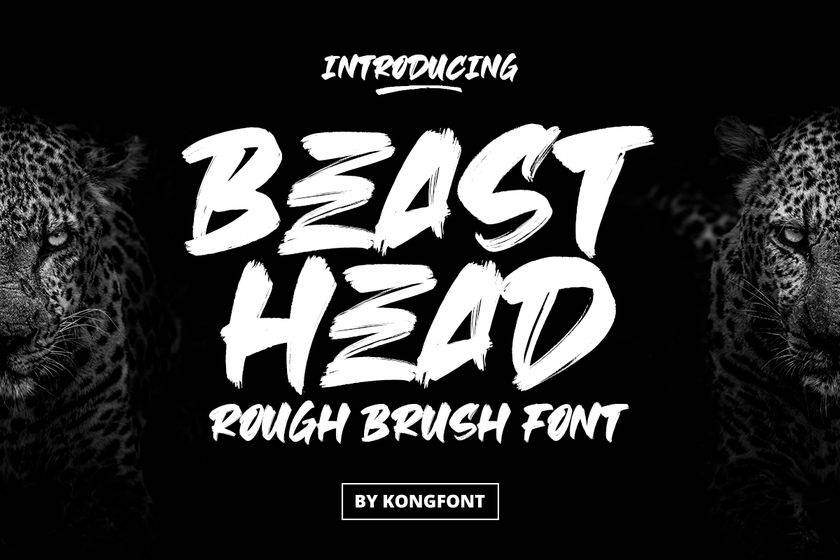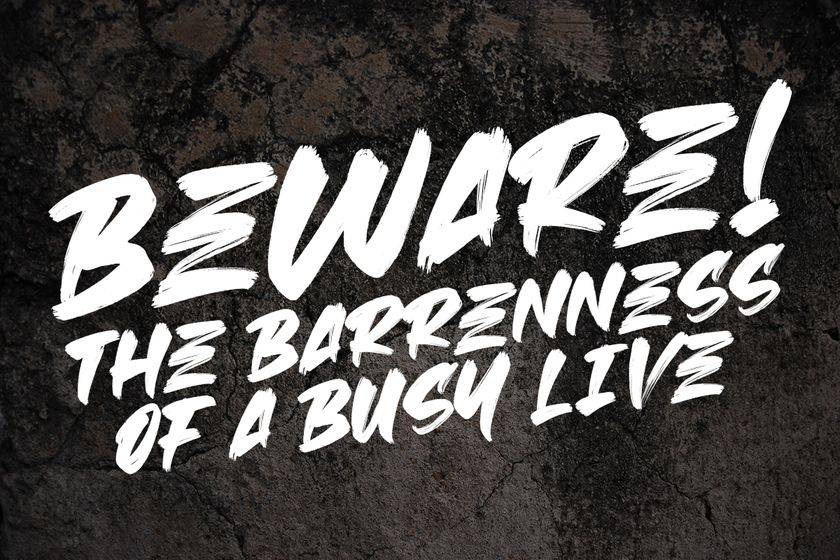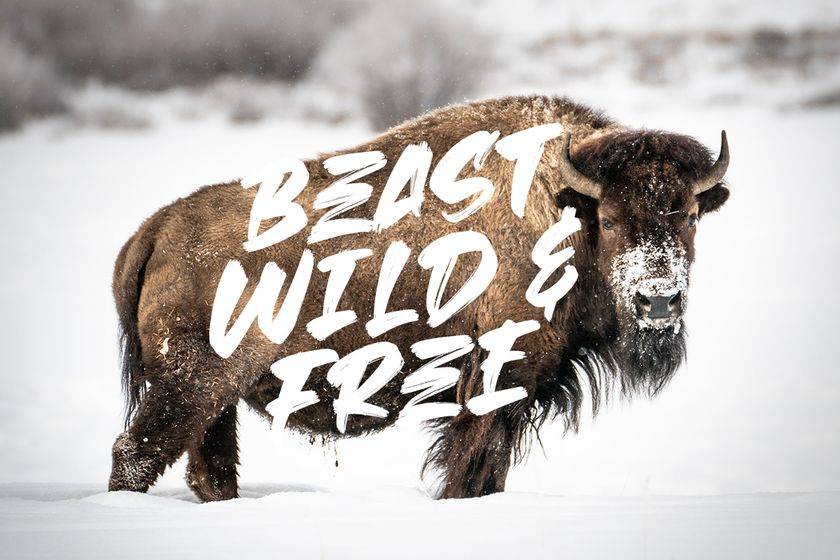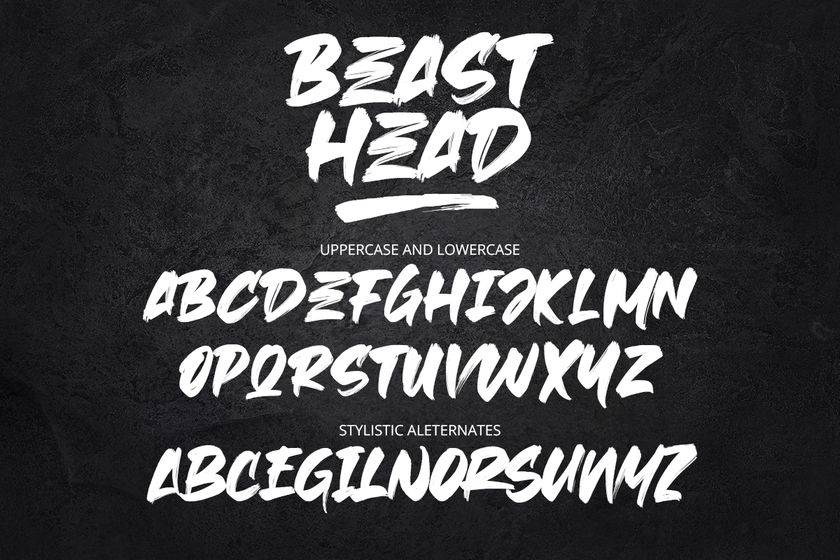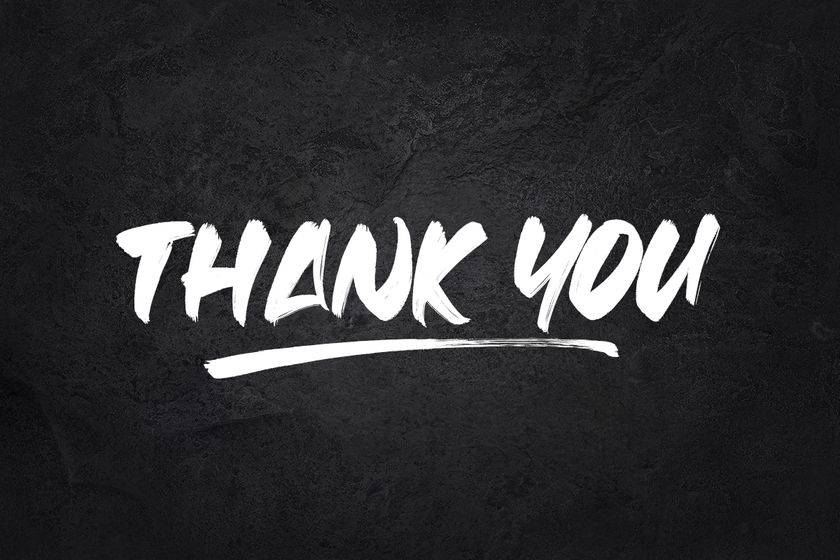
Beast Head Font is an energetic and bold brush script with a hand-painted, rough texture that gives it a wild, dynamic character. Its heavy weight and irregular strokes make it perfect for expressive, eye-catching designs like posters, logos, and branding that need a strong, edgy, and artistic vibe. This font works best in creative and informal settings where a sense of movement and raw energy is desired.
Beast Head Font
About Beast Head Font
| Font family | Beast Head Font |